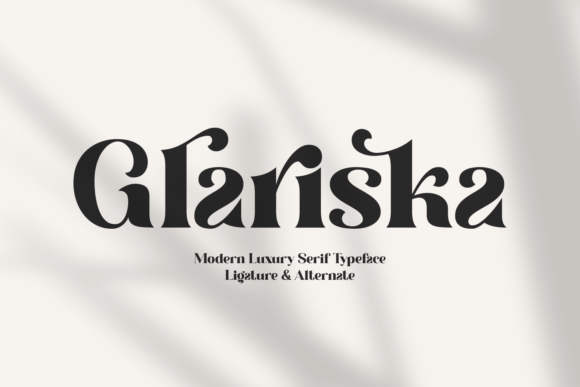
Glariska Font: Elevate Your Design with Luxury and Sophistication
In the world of typography, fonts play a crucial role in conveying the tone and personality of a brand or design. For those seeking a typeface that exudes luxury, sophistication, and high-end quality, Glariska Font is an exceptional choice. This modern serif typeface is specifically crafted for high-impact visual storytelling, making it perfect for upscale branding, editorial design, packaging, and creative headlines.
The Essence of Glariska Font
Glariska is a bold and luxurious font that combines dramatic curves and artistic flair to create a truly unique and expressive typeface. Its modern serif design features elegant alternates and unique ligatures, which add a touch of sophistication and refinement to any project. Whether you’re looking to create a stunning logo, a captivating headline, or a beautiful editorial spread, Glariska Font is the perfect choice.
Key Features of Glariska Font
- Bold and Luxurious Design: Glariska Font boasts a bold and luxurious design that’s perfect for high-end branding and editorial projects.
- Modern Serif Typeface: Its modern serif design gives Glariska a fresh and contemporary feel that’s ideal for creative and artistic projects.
- Unique Ligatures and Alternates: The font features unique ligatures and elegant alternates, which add a touch of sophistication and refinement to any project.
- High-Impact Visual Storytelling: Glariska Font is specifically crafted for high-impact visual storytelling, making it perfect for editorial design, packaging, and creative headlines.
Applications of Glariska Font
Glariska Font is an incredibly versatile typeface that can be used in a variety of applications, including:
- Upscale Branding: Glariska Font is perfect for high-end branding projects, such as luxury goods, fashion, and hospitality.
- Editorial Design: Its elegant design and unique ligatures make Glariska Font an excellent choice for editorial projects, such as magazines, newspapers, and books.
- Packaging Design: Glariska Font is ideal for packaging design, particularly for high-end products that require a luxurious and sophisticated look.
- Creative Headlines: The font’s bold and luxurious design makes it perfect for creative headlines, such as those used in advertising and marketing materials.
The Benefits of Using Glariska Font
Using Glariska Font in your design projects offers numerous benefits, including:
- Instant Sophistication: Glariska Font brings instant sophistication to any project, making it perfect for high-end branding and editorial projects.
- Unique and Expressive: The font’s unique ligatures and elegant alternates make it a truly expressive and artistic typeface.
- High-Quality Typography: Glariska Font is a high-quality typeface that’s designed to deliver exceptional results in a variety of applications.
- Versatility: The font’s versatility makes it an excellent choice for a wide range of design projects, from branding and editorial design to packaging and creative headlines.
Tips for Using Glariska Font
To get the most out of Glariska Font, here are a few tips to keep in mind:
- Use it Sparingly: Due to its bold and luxurious design, Glariska Font is best used sparingly to create a lasting impact.
- Pair it with Neutral Fonts: Pair Glariska Font with neutral fonts to create a beautiful contrast and add visual interest to your design.
- Experiment with Ligatures: Take advantage of Glariska Font’s unique ligatures to add a touch of sophistication and elegance to your design.
- Pay Attention to Kerning: Pay attention to kerning to ensure that your text is evenly spaced and visually appealing.
Glariska Font is an exceptional typeface that’s perfect for designers seeking to create high-end branding, editorial design, packaging, and creative headlines. Its bold and luxurious design, unique ligatures, and elegant alternates make it a truly expressive and artistic font that’s sure to bring instant sophistication to any project. By following the tips outlined above and taking advantage of Glariska Font’s key features, you can create stunning designs that leave a lasting impression.
- What is Glariska Font? Glariska Font is a bold and luxurious modern serif typeface crafted for high-impact visual storytelling.
- What are the key features of Glariska Font? Glariska Font features a bold and luxurious design, unique ligatures, elegant alternates, and a modern serif typeface.
- What applications is Glariska Font suitable for? Glariska Font is suitable for upscale branding, editorial design, packaging, and creative headlines.
- What are the benefits of using Glariska Font? The benefits of using Glariska Font include instant sophistication, unique and expressive design, high-quality typography, and versatility.